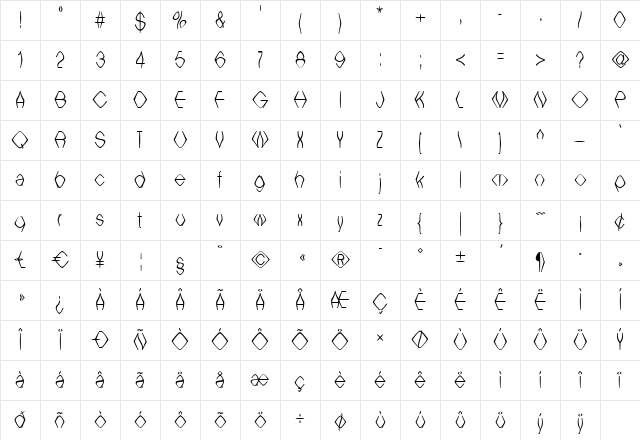
WitchesBrew Regular
Designer: Apostrophe (')
Design Context for WitchesBrew
WitchesBrew is a composed and adaptable typeface that performs quietly and consistently across a wide range of design contexts.